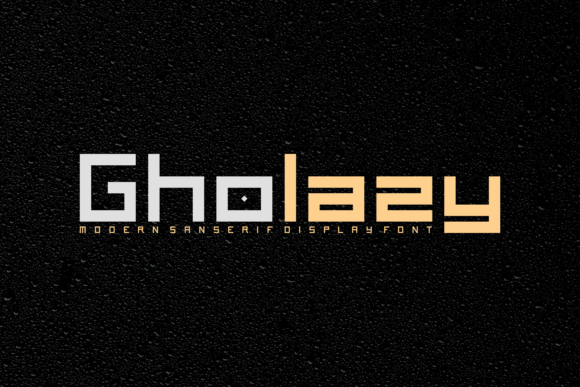
Introducing Gholazy Font, the Bold and Assertive Sans Serif Font That Will Ignite Your Designs!
Gholazy is not just a font; it's a statement. Its bold and assertive presence will command attention, leaving an indelible mark on your audience. Whether you're designing logos, posters, headlines, or any other projects, Gholazy will elevate your creations to new heights.
With its clean lines, sharp edges, and confident style, Gholazy is perfect for conveying messages with impact. It exudes strength, power, and determination, making it an ideal choice for projects that demand attention. The sans serif design ensures optimal readability, even in small sizes, while the carefully crafted letterforms create a visually stunning aesthetic.
Unleash Your Creative Potential:
- Ignite your designs with the captivating boldness of Gholazy.
- Make a statement with logos that exude confidence and power.
- Create posters that demand attention and leave a lasting impression.
- Craft headlines that grab readers' attention and entice them to explore further.
- Elevate your marketing materials with a font that commands respect.
Join the ranks of creative professionals who have embraced the power of Gholazy to transform their designs. Experience the thrill of creating projects that resonate with your audience and leave an enduring legacy.